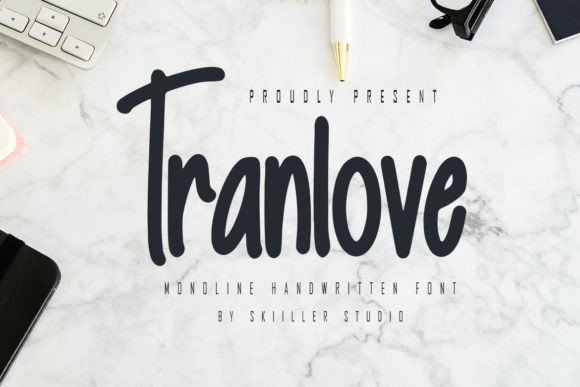
**Introducing Tranlove Font: The Ultimate Expression of Modern Elegance**
In a world of digital monotony, Tranlove Font stands out as a beacon of creativity and expression. This exquisite script font, meticulously crafted by the renowned Skiiller Studio, is a masterpiece that will elevate your designs to new heights.
Tranlove embodies the spirit of modernism, where simplicity and sophistication intertwine. Its brushstrokes flow effortlessly, creating an alluring dance of lines that captivates the eye. Each character exudes confidence and dynamism, instilling a sense of power and purpose in your words.
Whether you seek to create a stunning logo that reflects your brand's personality, or craft a compelling CV that leaves a lasting impression, Tranlove Font is the perfect choice. Its versatility knows no bounds, making it an indispensable tool in the arsenal of any designer or creative professional.
Beyond its aesthetic appeal, Tranlove Font holds a profound emotional connection. Its flowing lines evoke a sense of freedom and liberation, inviting you to express your individuality without restraint. It's a font that empowers you to make a statement, to stand out from the crowd, and to leave an indelible mark on the world.
Join the ranks of discerning designers who have discovered the transformative power of Tranlove Font. Experience the joy of creating captivating designs that resonate with your audience. Let your words flow effortlessly from the page, carrying with them the weight of your passion and the promise of your dreams.
Embrace Tranlove Font today, and unleash the power of modern elegance in your designs.